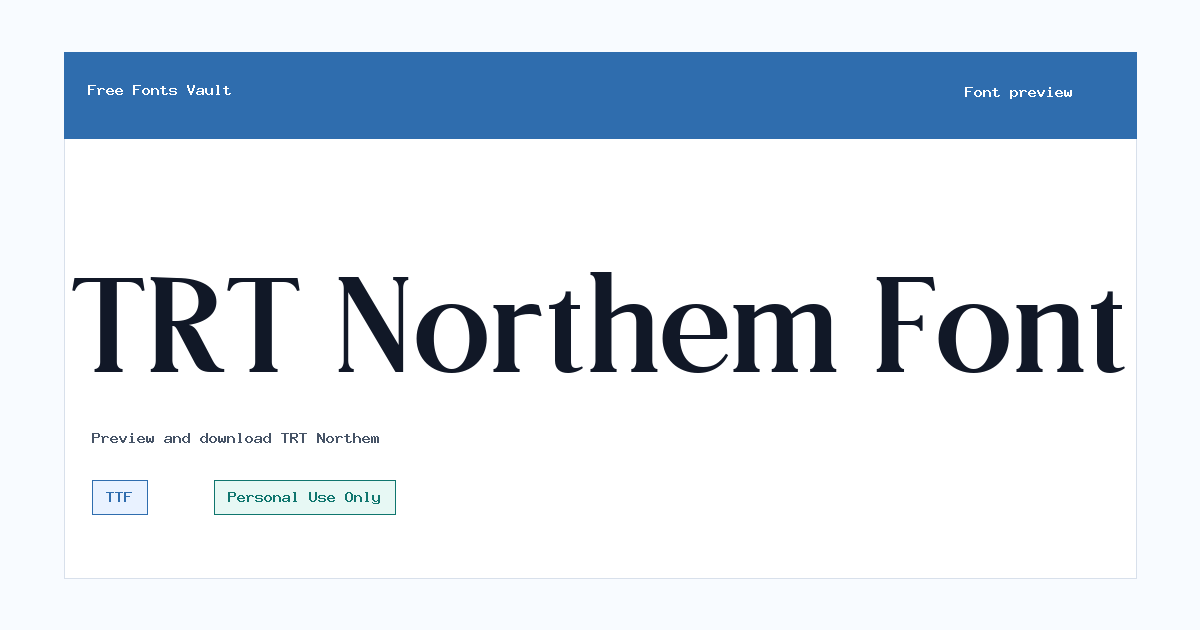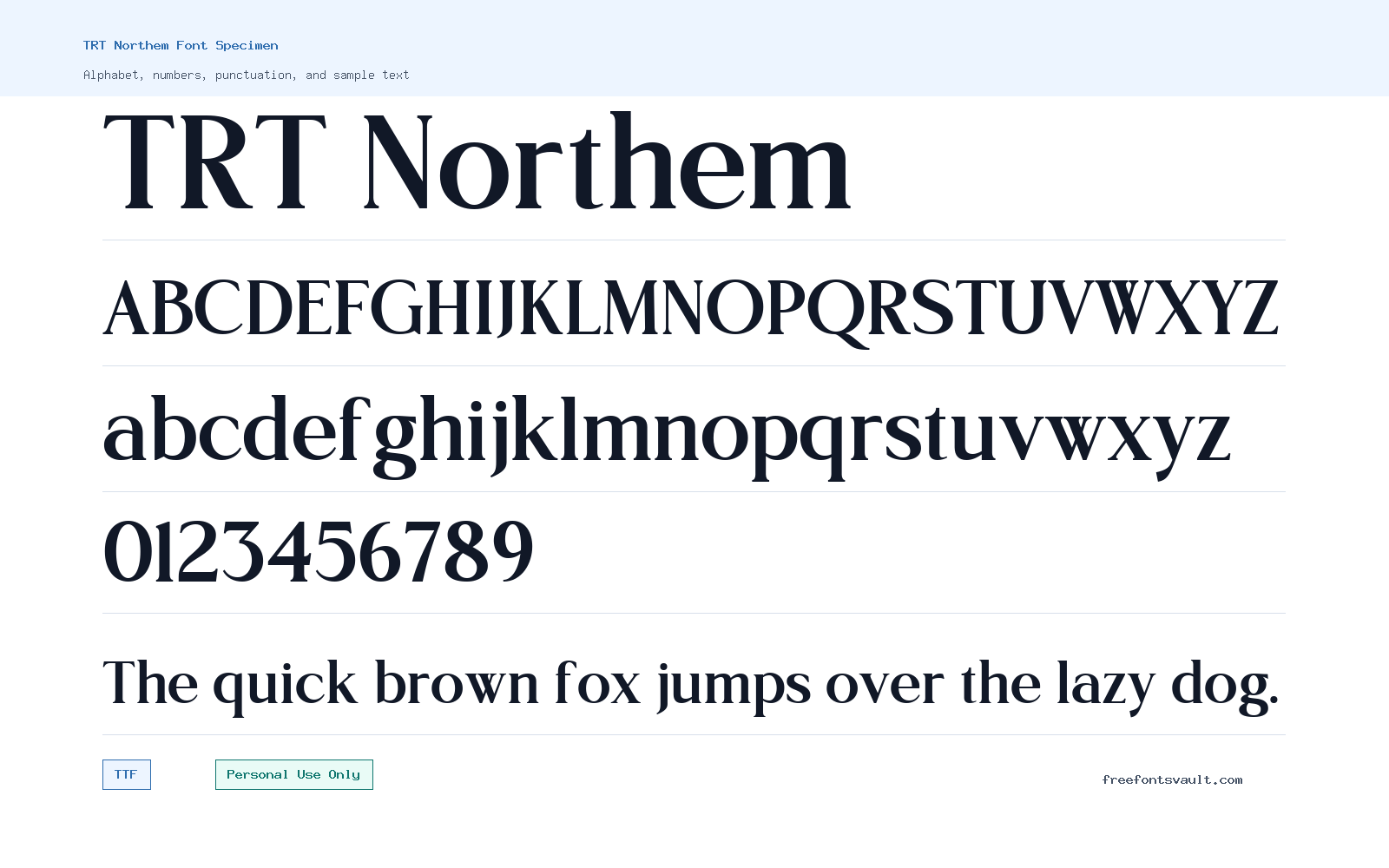
TRT Northem
TRT Northem font.
TRT Northem is a serif font family with multiple TTF files for personal projects, giving you room to test lighter, regular, medium, semibold, bold, and extended weight styles in the preview.
About TRT Northem
TRT Northem has the structure of a serif display family, so it is best approached as a font for headings, names, covers, posters, social graphics, and other short pieces of text where shape and tone matter. The file names point to a Mini Edition set with Thin, Extra Light, Light, Regular, Medium, SemiBold, Bold, and Extra Bold styles, which makes it more flexible than a single-style download. The lighter cuts can help with elegant titles or quiet editorial layouts, while the heavier cuts are better for stronger headlines and compact display use.
- Serif styling suited to display text, titles, posters, branding mockups, invitations, and editorial-style graphics.
- Headline testing, logo concept sketches, magazine-style covers, and short display text where a serif look is needed.
What should I use TRT Northem for?
Use it for personal display work such as headings, posters, invitations, social graphics, cover concepts, and short decorative text.
Is TRT Northem good for body text?
Test it first at the size you need. It is safer to use it for titles and pair it with a simpler font for longer reading.